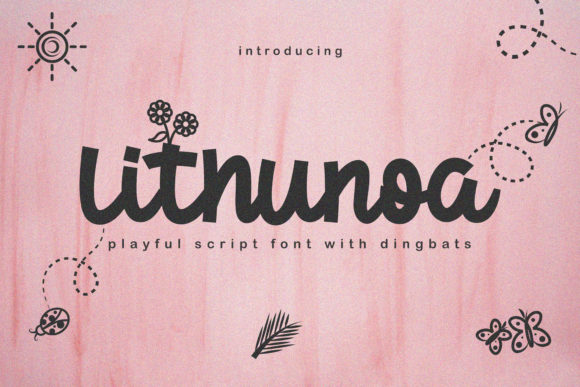
Feast your eyes upon Lithunoa, a breathtaking duo font that redefines elegance and charm. This captivating creation by jadatype is a harmonious blend of display and dingbats, each stroke imbued with a story waiting to be told. Its meticulous design and captivating style make it the perfect companion for a myriad of casual and informal projects, igniting imagination wherever it goes.
Dive into the world of Lithunoa and discover a font that's more than just letters and symbols; it's a gateway to creative expression. Whether you're a seasoned graphic designer or a passionate crafting enthusiast, Lithunoa seamlessly adapts to your creative vision. Its versatility knows no bounds, lending its beauty to everything from digital designs and presentations to heartfelt greeting cards.
With Lithunoa as your creative ally, crafting becomes a symphony of colors and emotions. Its display font dances across the page, captivating eyes with its graceful curves and playful strokes. The dingbats, like tiny pieces of art, add a touch of whimsy and magic to your designs, transforming ordinary projects into extraordinary expressions.
Picture yourself creating breathtaking logos that leave an indelible mark, business cards that exude sophistication, or social media posts that captivate audiences. Lithunoa's inherent charm breathes life into any project, making it the font of choice for those who dare to be remarkable.
But Lithunoa isn't just a collection of pixels on a screen; it's an extension of your creativity, a tool that unlocks your storytelling potential. Its versatility empowers you to craft designs that resonate, to create visual narratives that touch hearts and ignite imaginations.
So, embrace the allure of Lithunoa and embark on a creative journey like no other. Let your designs bloom with beauty, let your messages captivate, and let your imagination soar to new heights. With Lithunoa, the ordinary becomes extraordinary, and the mundane transforms into masterpieces.